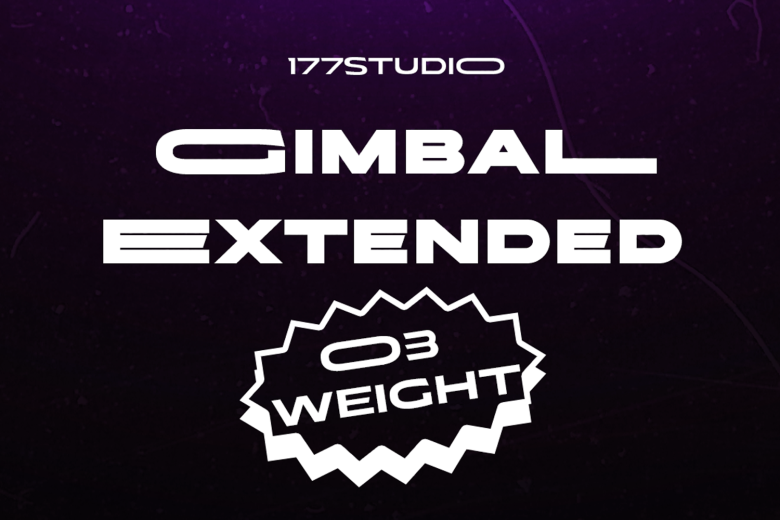
Gimbal Extended Font
Gimbal Extended Font Made for text display purposes, It’s brings a modern and strong impression to your design. With a bold style, make this font suitable as the main text / header text on a website or layout design. Gimbal Extended Font has its own particular friendly and warm appearance of modern touch. With its extensive and open proportions, it makes a grand appeareance for your projects.